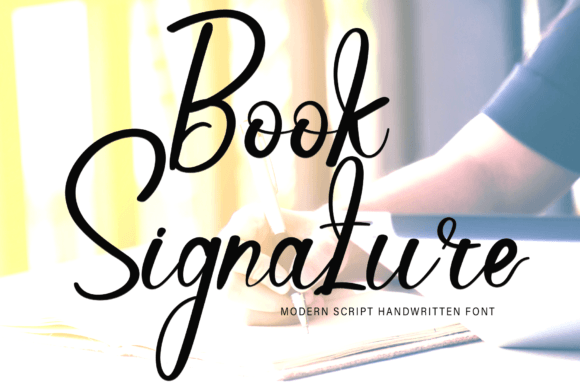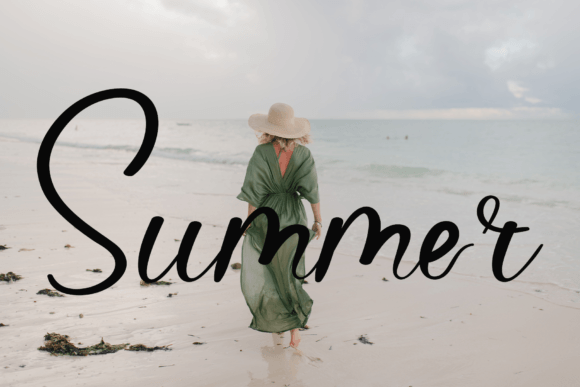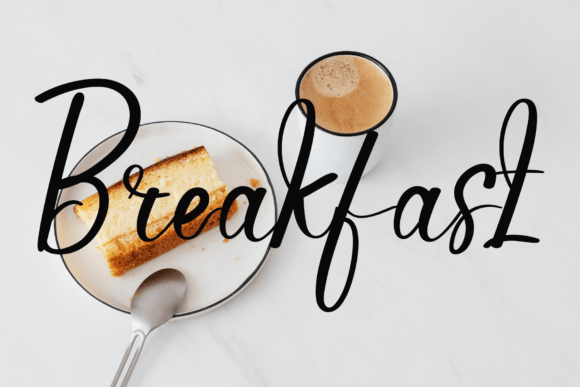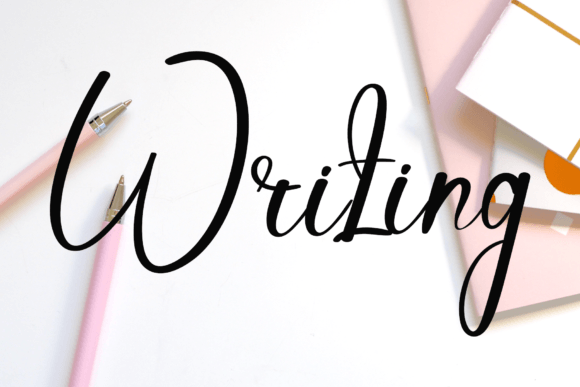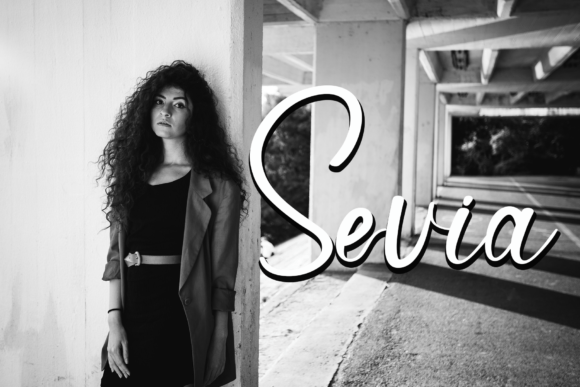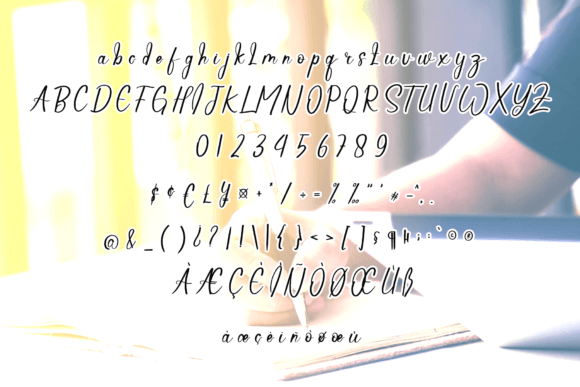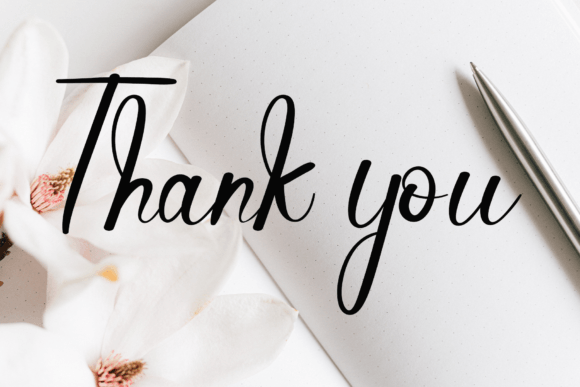
Book Signature
About Book Signature
Book Signature is a simple and friendly handwritten font. Whether you’re using it for crafts, digital design, presentations, or making greeting cards, this font has the potential to become your favorite go-to font, no matter the occasion!